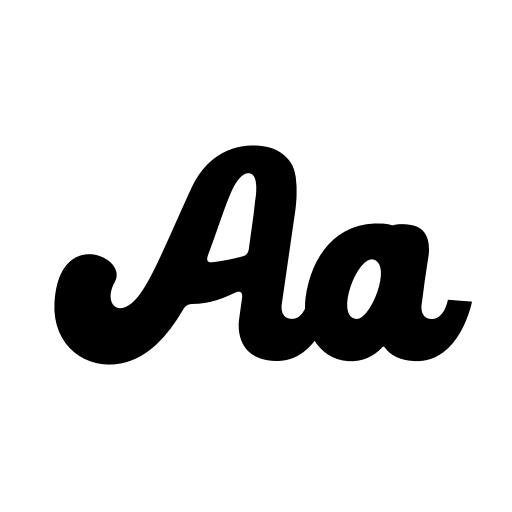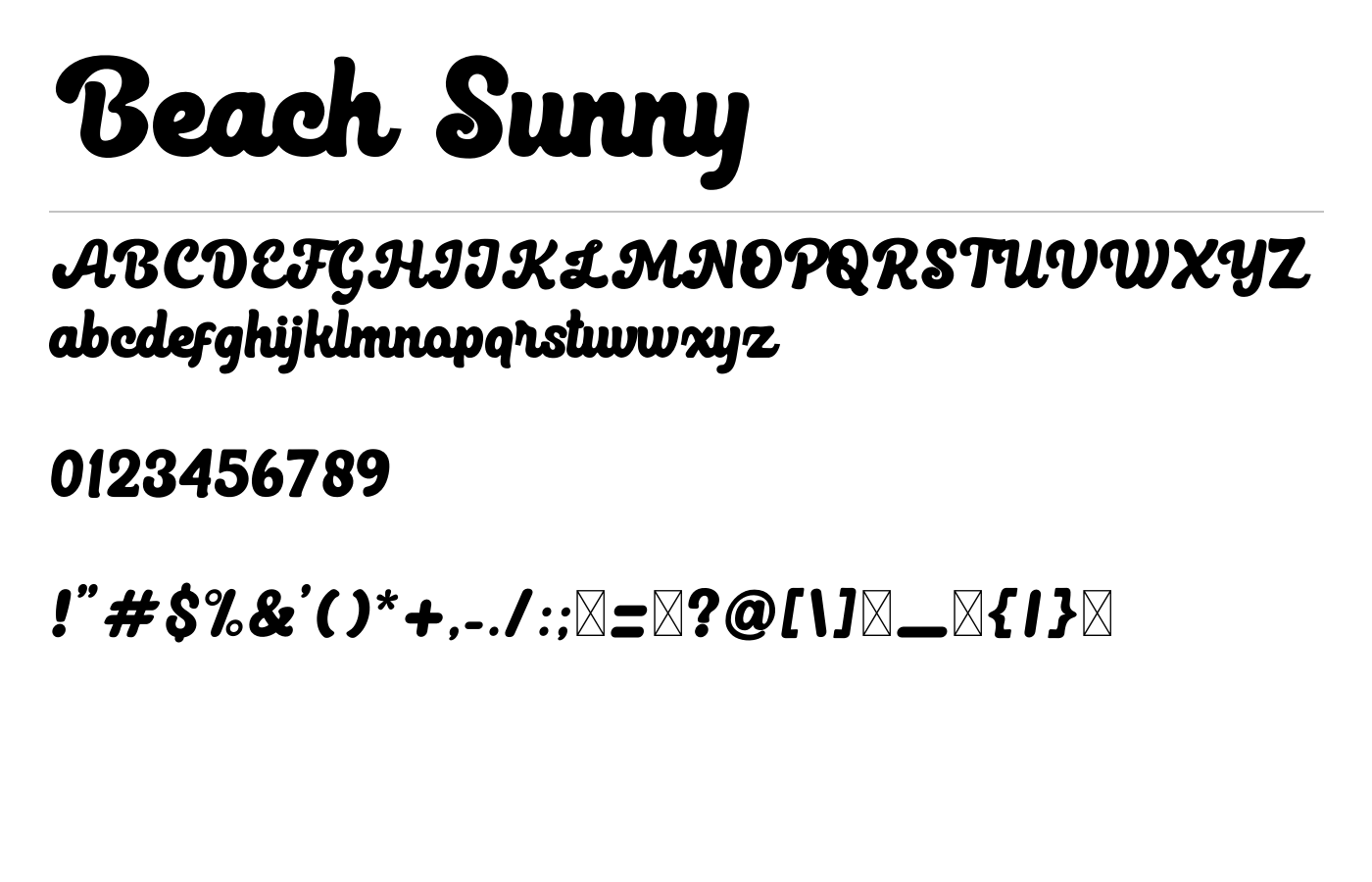
Beach Sunny is a bold, rounded script font with a playful and friendly feel, featuring smooth, connected letters and a moderate x-height that enhances readability. Its lively curves and informal style make it perfect for casual branding, packaging, and creative projects that seek a warm, approachable vibe. With its strong personality and clear legibility, it works well for headlines, logos, and any design aiming to evoke a sunny, cheerful atmosphere.
Beach Sunny Font
About Beach Sunny Font